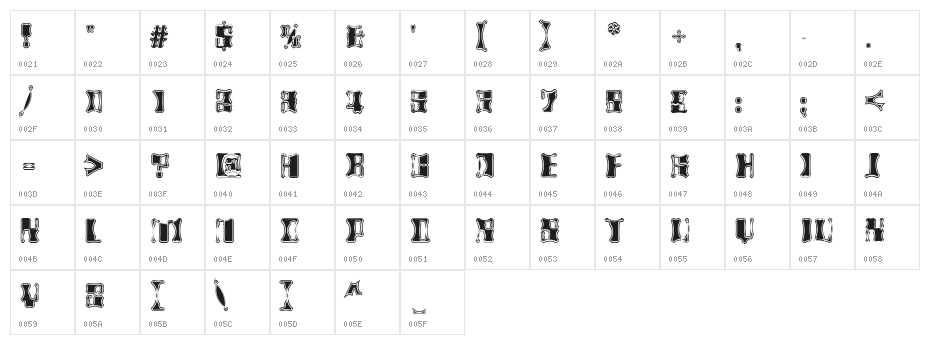
AlienAutopsy Font
AlienAutopsy Description
This font features a bold and striking design with a unique, alien-like aesthetic. Each character is heavily stylized, with thick, dark strokes and intricate, organic shapes that give it a mysterious and otherworldly appearance. The uppercase and lowercase letters maintain a consistent style, with sharp angles and fluid curves that create a sense of movement. The numerals and special characters are equally distinctive, incorporating the same bold and intricate design elements. This font is perfect for projects that require a futuristic or unconventional look, making it ideal for sci-fi themes, video game titles, or creative branding.
| Overall Style | Futuristic, Decorative |
| Proposed Projects | Ideal for sci-fi themes, video game titles, creative branding, and unconventional design projects. |